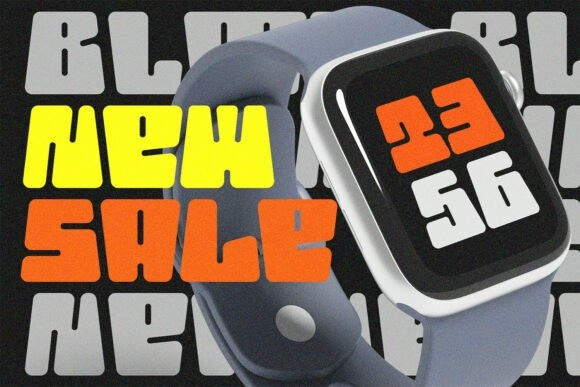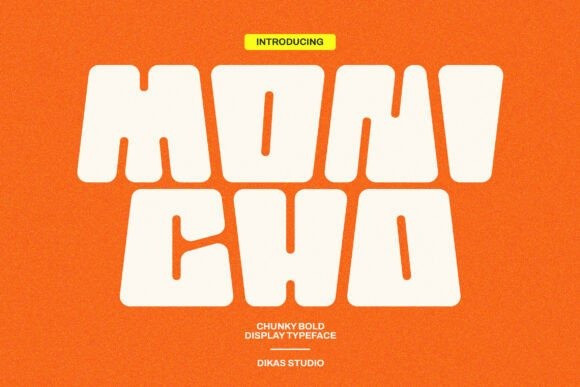
Monicho Font is a bold, powerful display font that perfectly combines vintage charm with a modern edge. With its strong shapes and playful personality, Monicho brings a nostalgic feel while keeping your designs fresh and modern.
Ideal for vintage-inspired projects, Monicho is perfect for posters, logos, branding, packaging and eye-catching display text. Its vibrant, energetic energy makes it a top choice for designers looking to create striking visuals with personality and style.
Whether you’re building a vintage-inspired brand identity, designing an attention-grabbing headline or building a fun and dynamic layout, Monicho ensures your work grabs attention and leaves a lasting impression. Make your next project stand out with the versatile and stylish Monicho font.